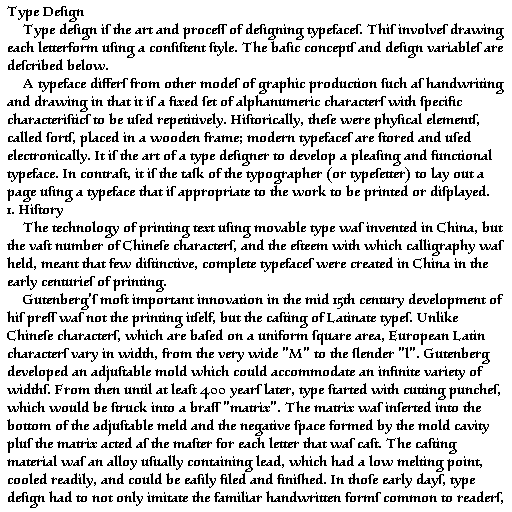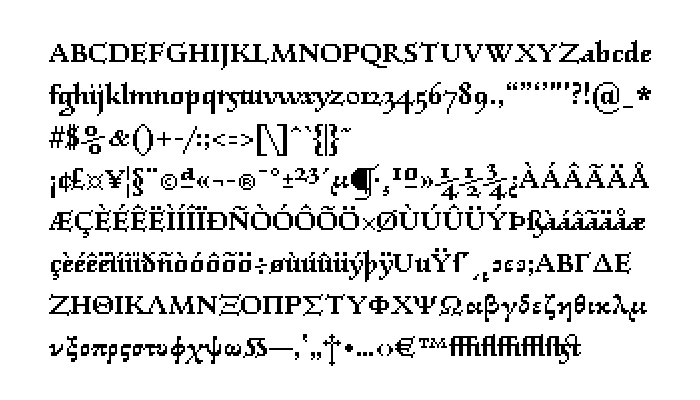
@Echo Heo (bluemon) - Beautiful pixel font!  Congratulations on this design.  :^)
A nice serif pixel font with healthy ascenders and descenders. Latin caps: checks all boxes. The Latin lower case: I see you've tried to play with the "s" to bring in some fresh air. The archaic long s, ⟨ſ⟩ renders the text nearly illegible (on your sample picture). The second version - stretching to the descender space - is interesting. The "g" goes halfway back to blackletter tradition. There is nothing wrong with experimenting... The "y" is gorgeous. Numbers: 0 and 7 need more strength. The Greek lower case letters are awesome. (I can't believe you've done this in a single day.) Lovely special characters and ligatures. There are so many beautiful details, it would take a long time to mention all of them. This is a work of a professional. 10/10
Looks like Garamond
Nice FS! Looks very clean.